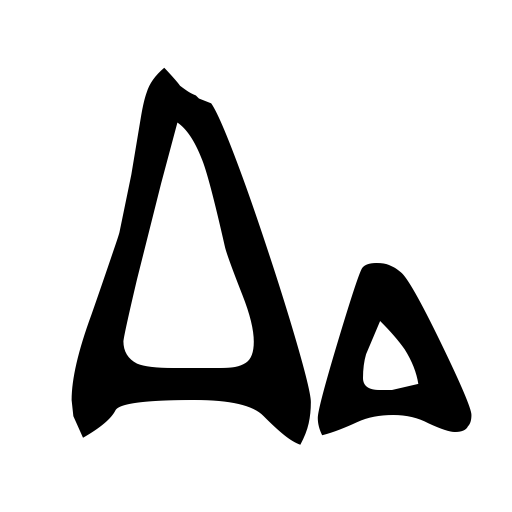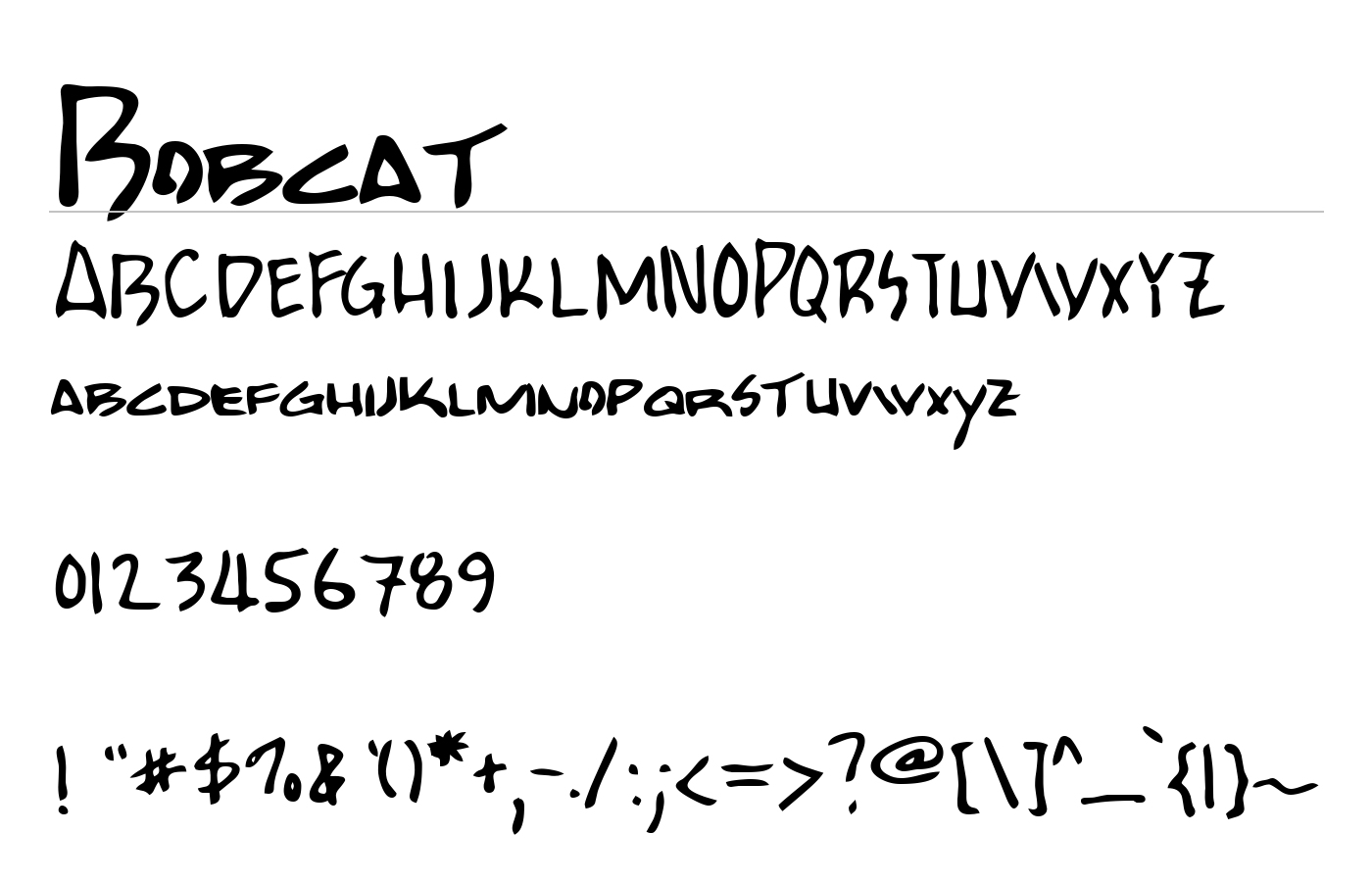
Bobcat is a playful, hand-drawn sans serif font with an expressive, slightly rough character that mimics casual handwriting. Its irregular shapes and dynamic strokes give it an informal, creative feel, perfect for projects needing a fun and approachable personality. This font works well in headlines, branding, and designs aimed at a youthful or artistic audience seeking a unique, human touch.
Bobcat Font
About Bobcat Font